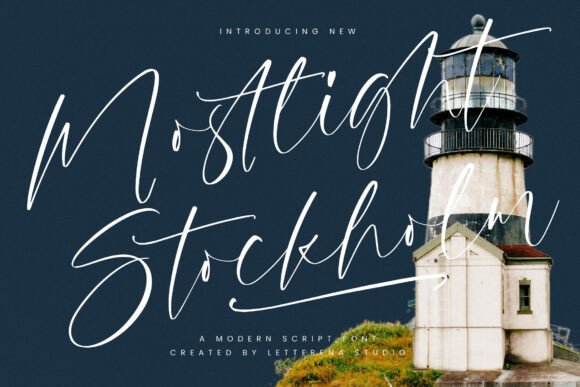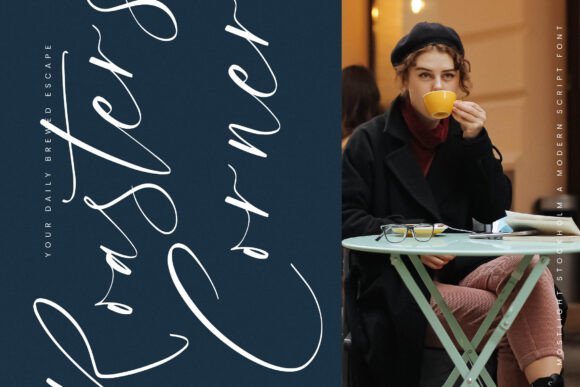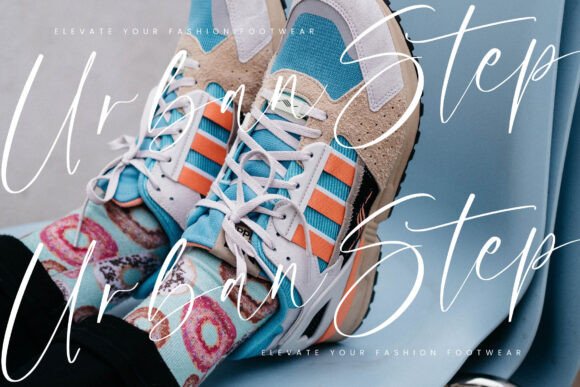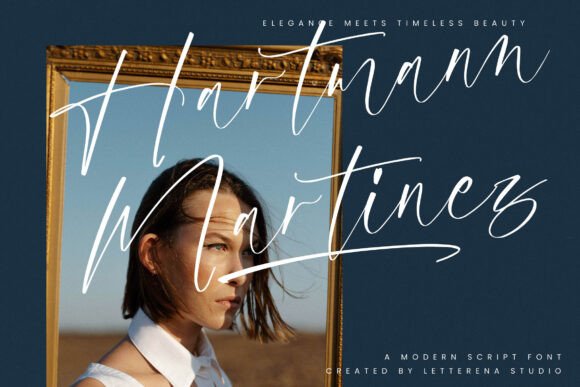
Mostlight Stockholm Font
About the Mostlight Stockholm Font
We are excited to introduce Mostlight Stockholm Font, a must-have typeface for any serious designer. Mostlight Stockholm – Modern Script Font , from Letterena, is a Luxury Script font, suitable for any projects such as: logos, branding projects, homeware designs, product packaging, mugs, quotes, posters, shopping bags, t-shirts, book covers, name card, invitation cards, greeting cards, label, photography, watermark, special events, and all your other luxury and beautiful projects that need a Luxury Script taste.
Mostlight Stockholm’s elegant, slightly playful personality makes it ideal for headlines, short text blocks on packaging, and branding elements where a touch of luxury is desired. It excels in logo design and short-form marketing materials, adding a sophisticated yet approachable feel. However, its intricate detail makes it unsuitable for body text or UI elements; readability suffers at smaller sizes.
Consider pairing it with a clean sans-serif like Lato or Montserrat for a modern contrast, or a classic serif such as Garamond or Playfair Display for a more traditional, refined look. For a bolder statement, a geometric sans-serif like Futura could be effective.
The overall mood is upscale yet approachable, conveying both sophistication and a friendly warmth. Avoid using it for projects requiring high readability or a highly minimalist aesthetic.
Mostlight Stockholm Font Usage Examples
Mostlight Stockholm Font Example